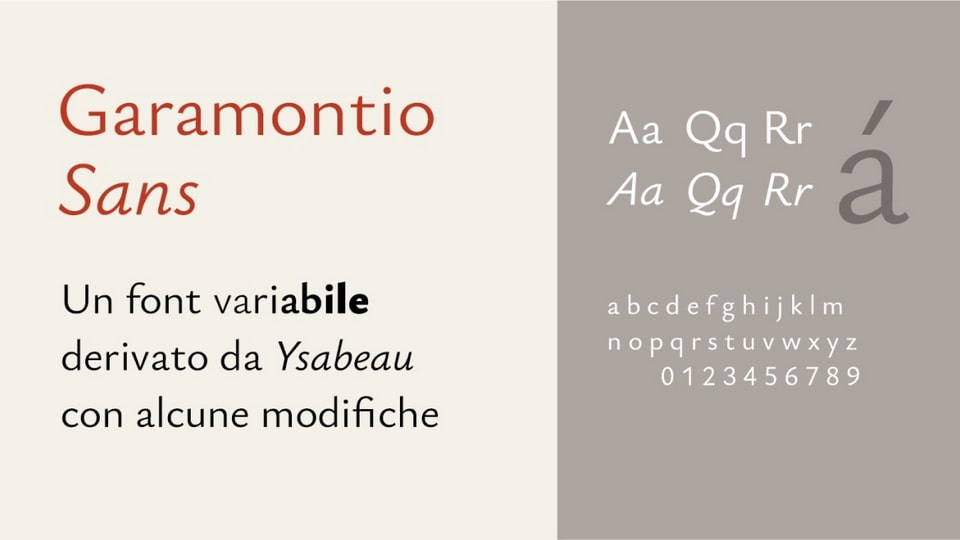
Download Garamontio Sans font, a sophisticated variable sans serif typeface that masterfully combines the timeless letterforms of the Garamond legacy with the clean, crisp appeal of a low-contrast sans serif.
Designer: Michele Casanova